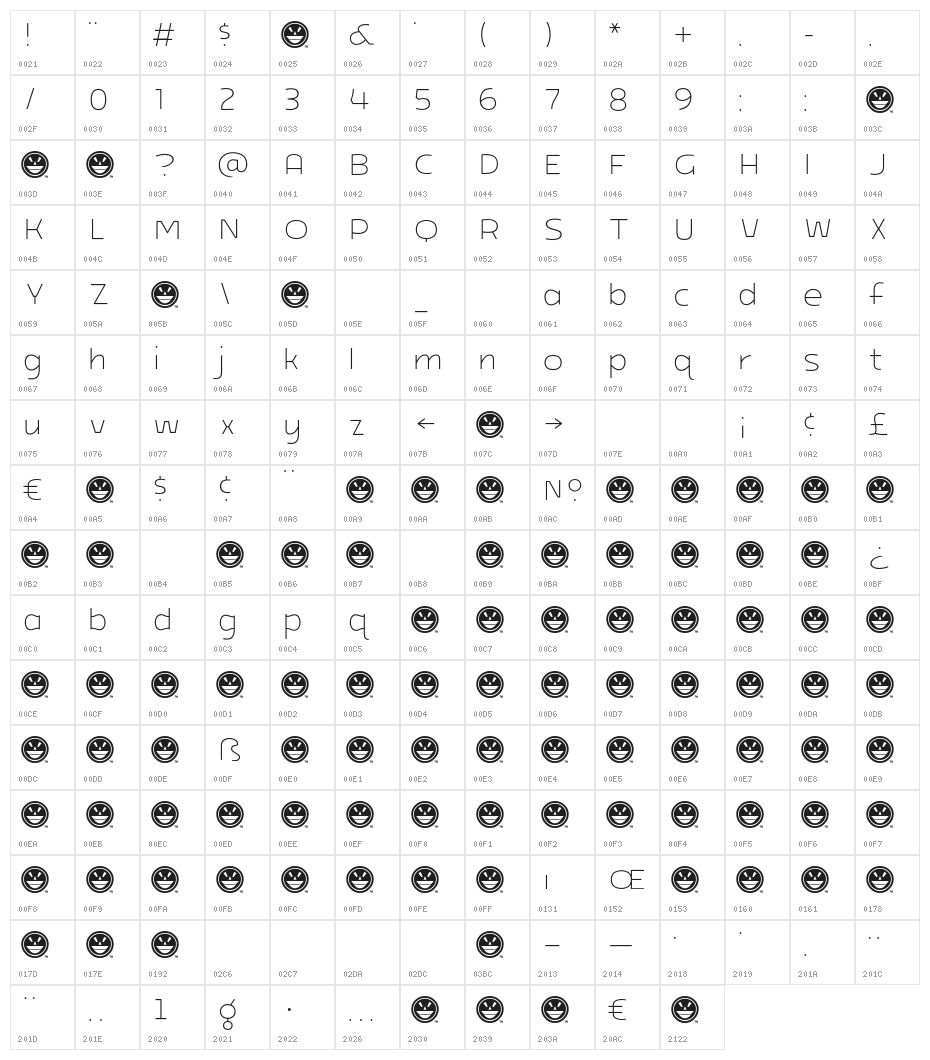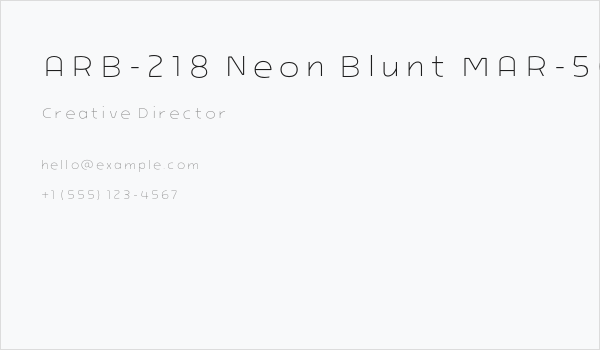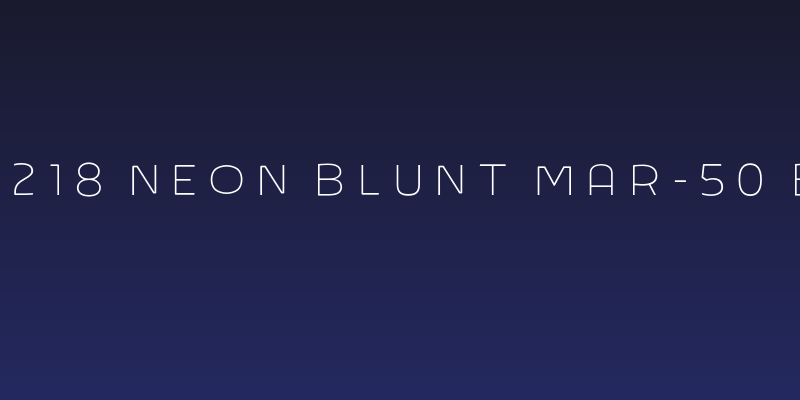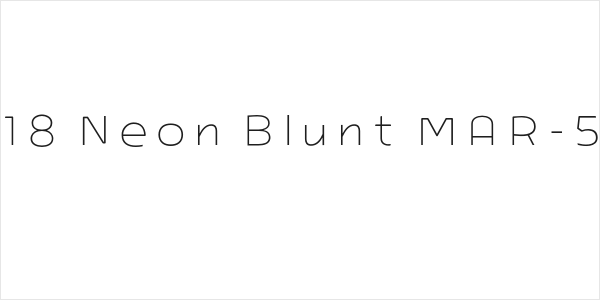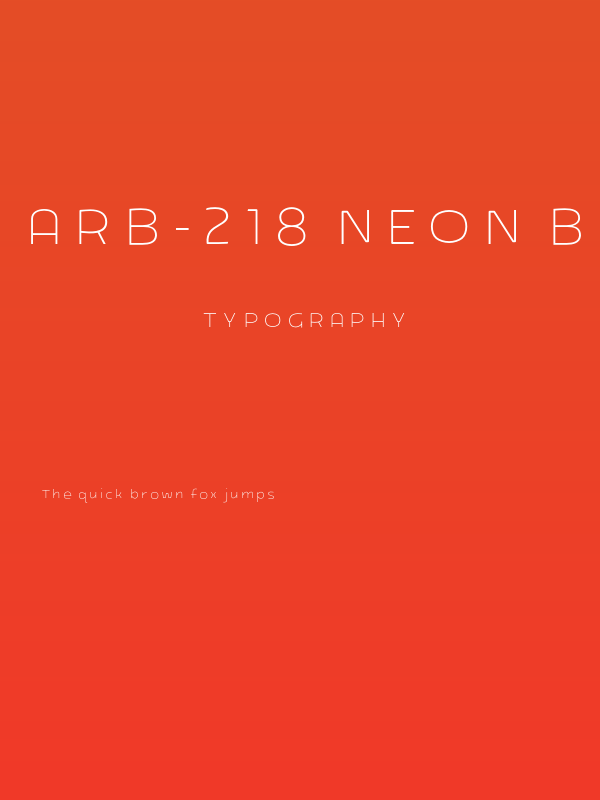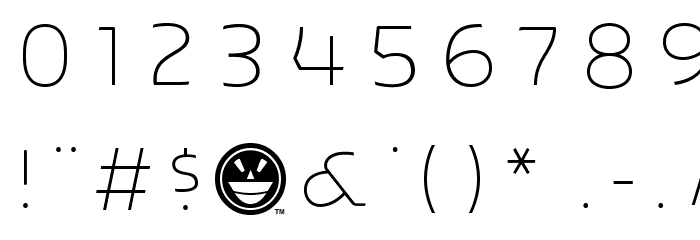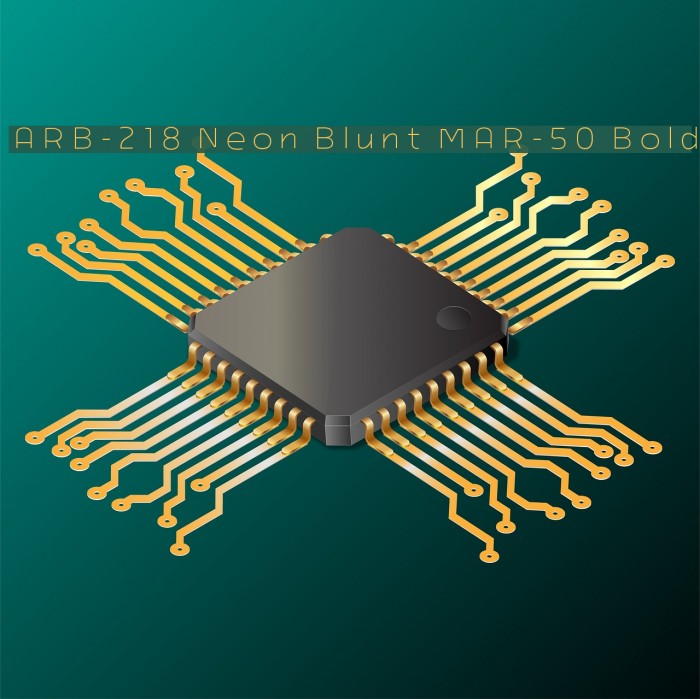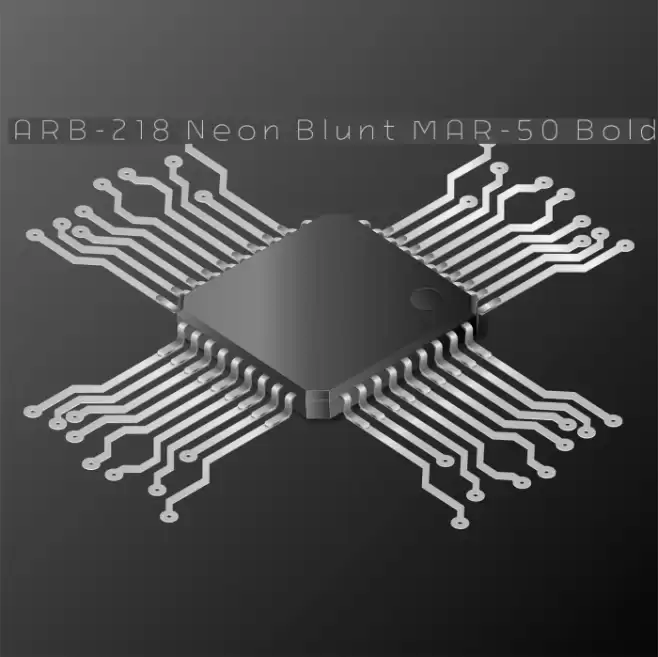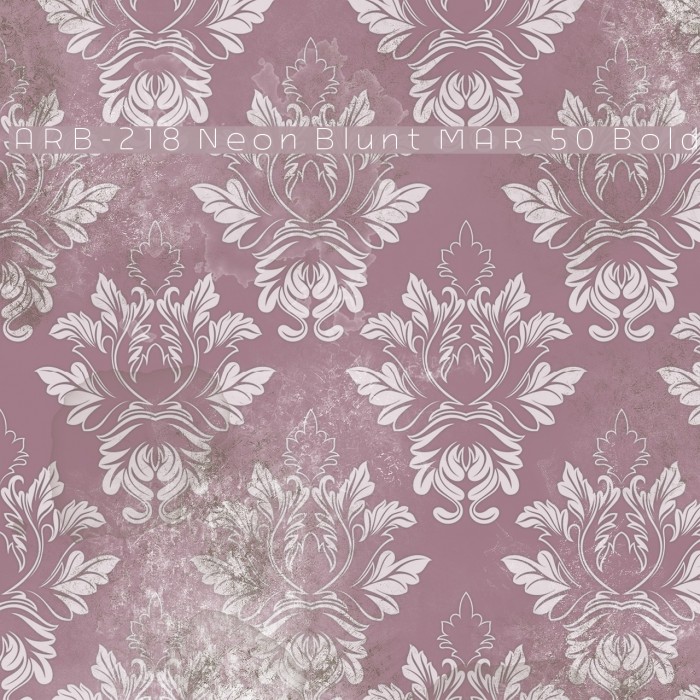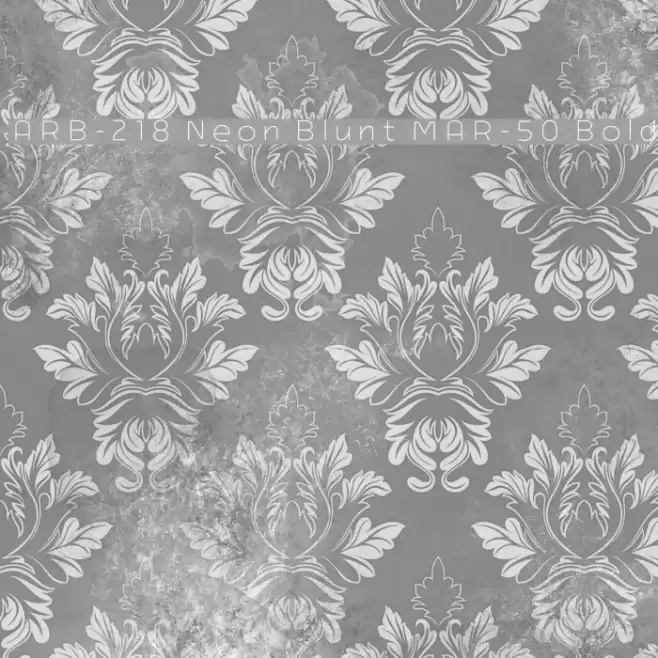
ARB-218 Neon Blunt MAR-50 Bold Font
ARB-218 Neon Blunt MAR-50 Bold Description
This font features a clean, modern design with rounded edges and a minimalist aesthetic. The characters are evenly spaced and have a consistent stroke width, giving it a sleek and contemporary look. The uppercase and lowercase letters maintain a uniform height, contributing to its balanced appearance. The numerals and special characters are designed to complement the alphabet, ensuring a cohesive style throughout. This font is versatile and can be used in various design projects that require a modern and approachable feel.